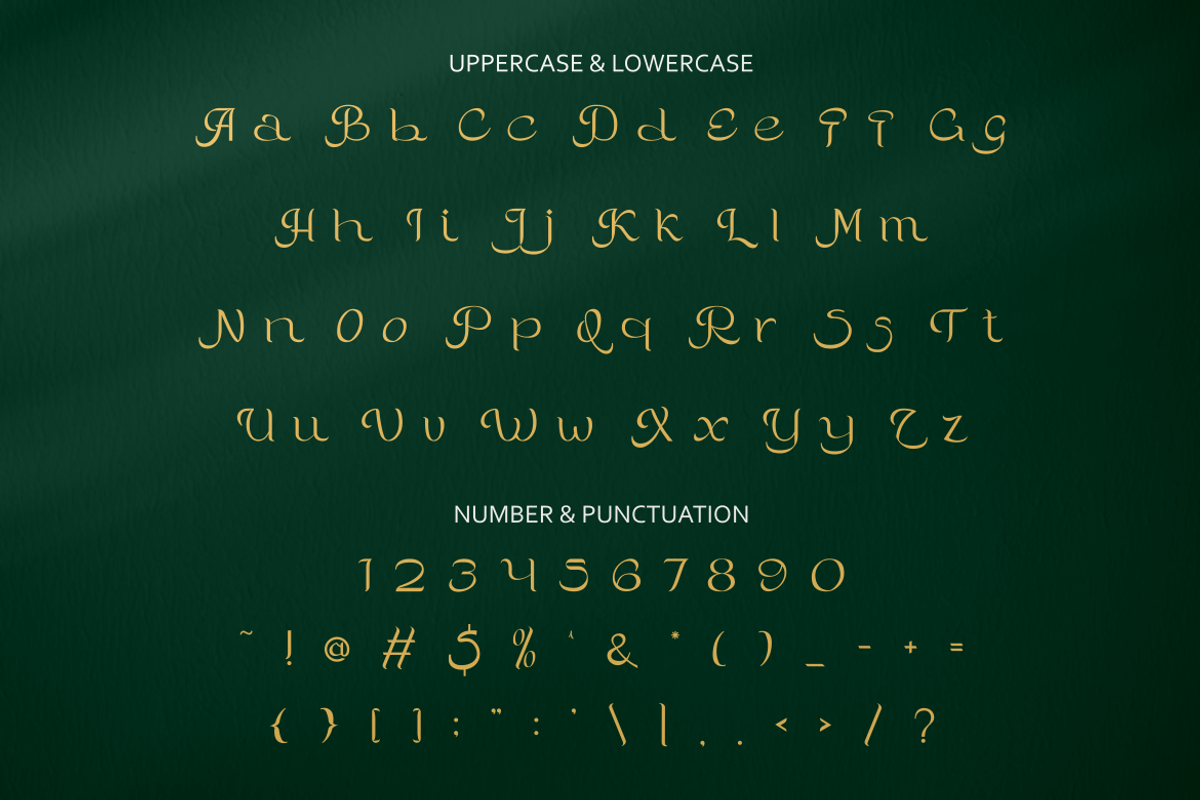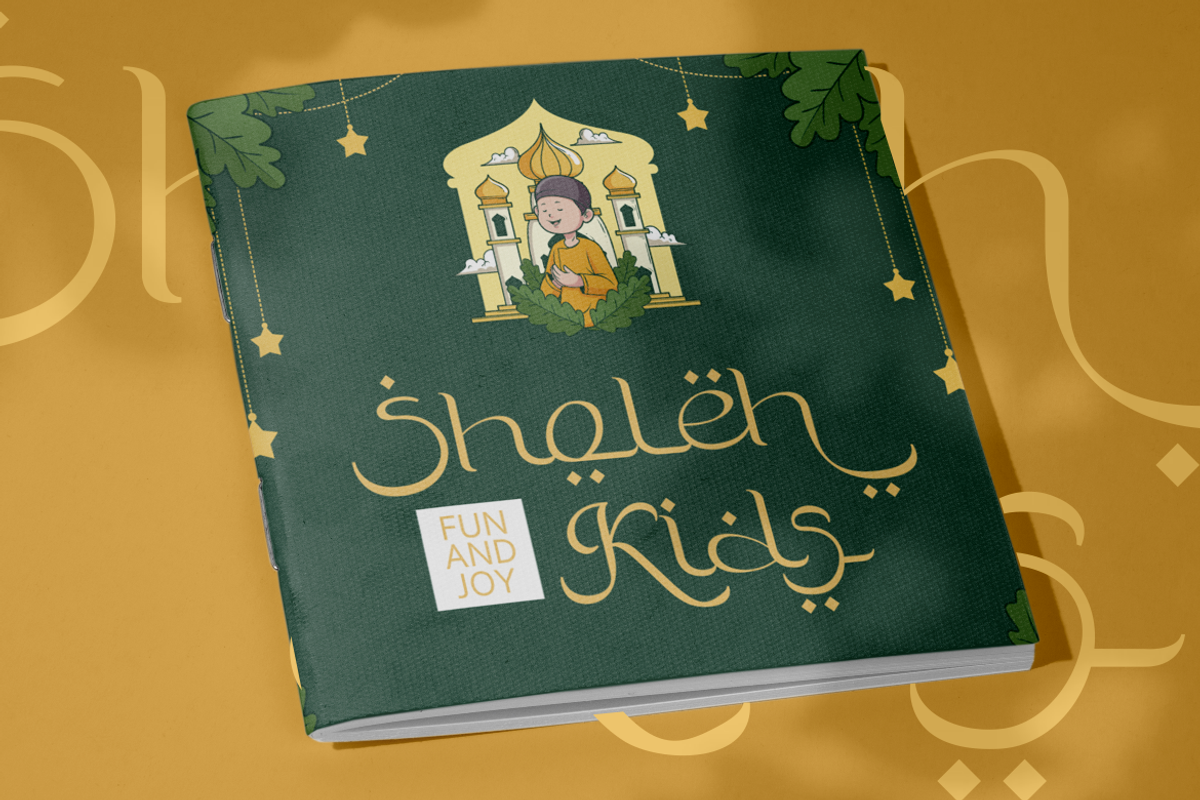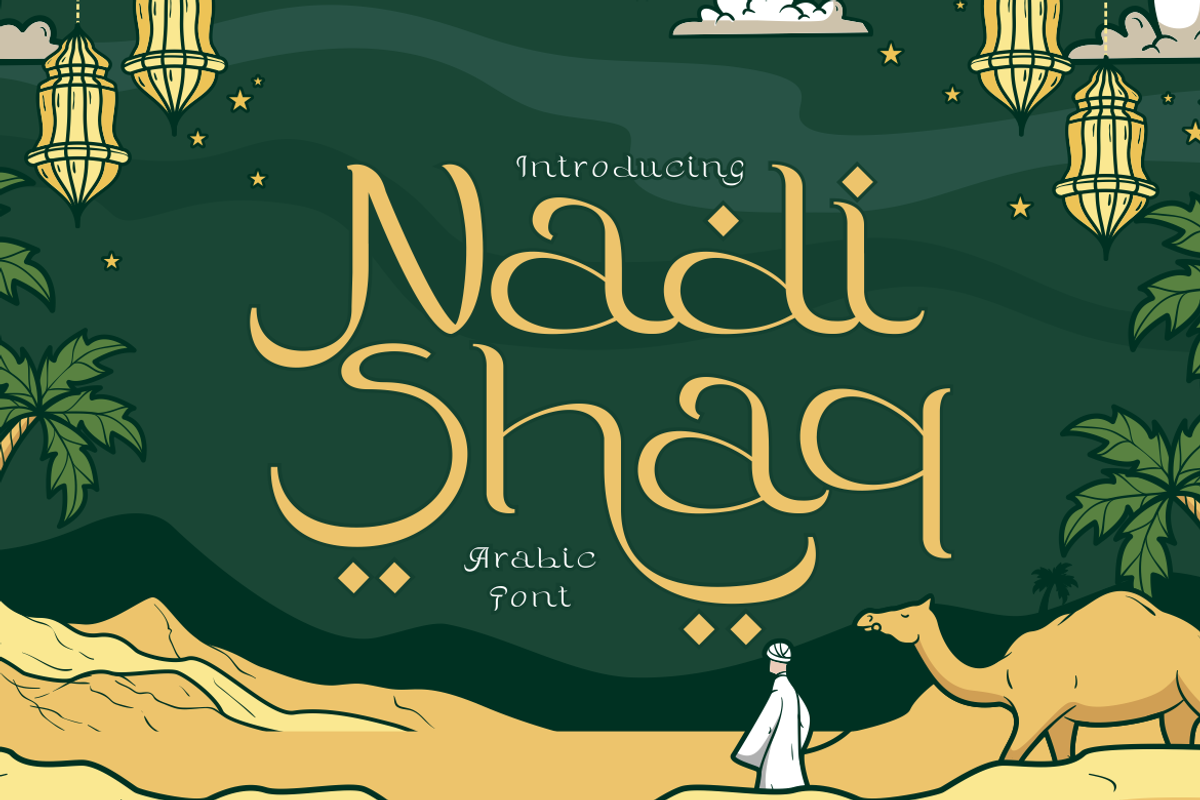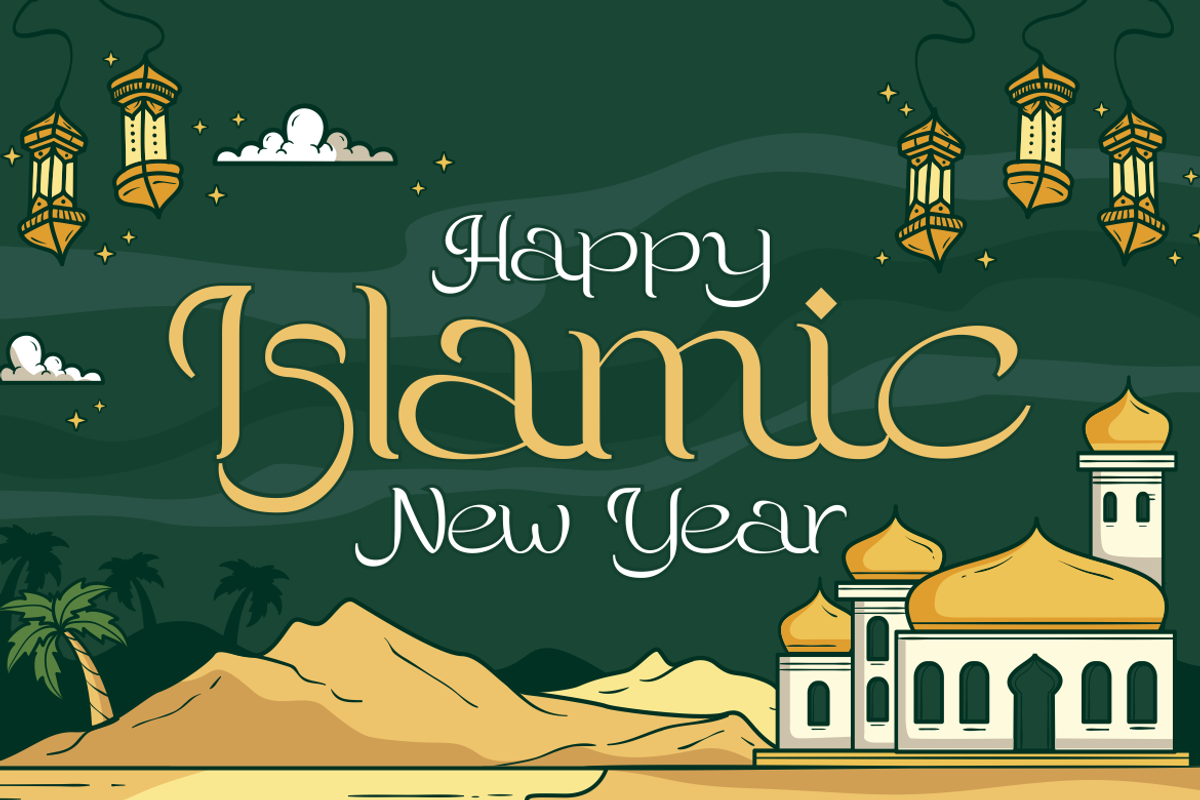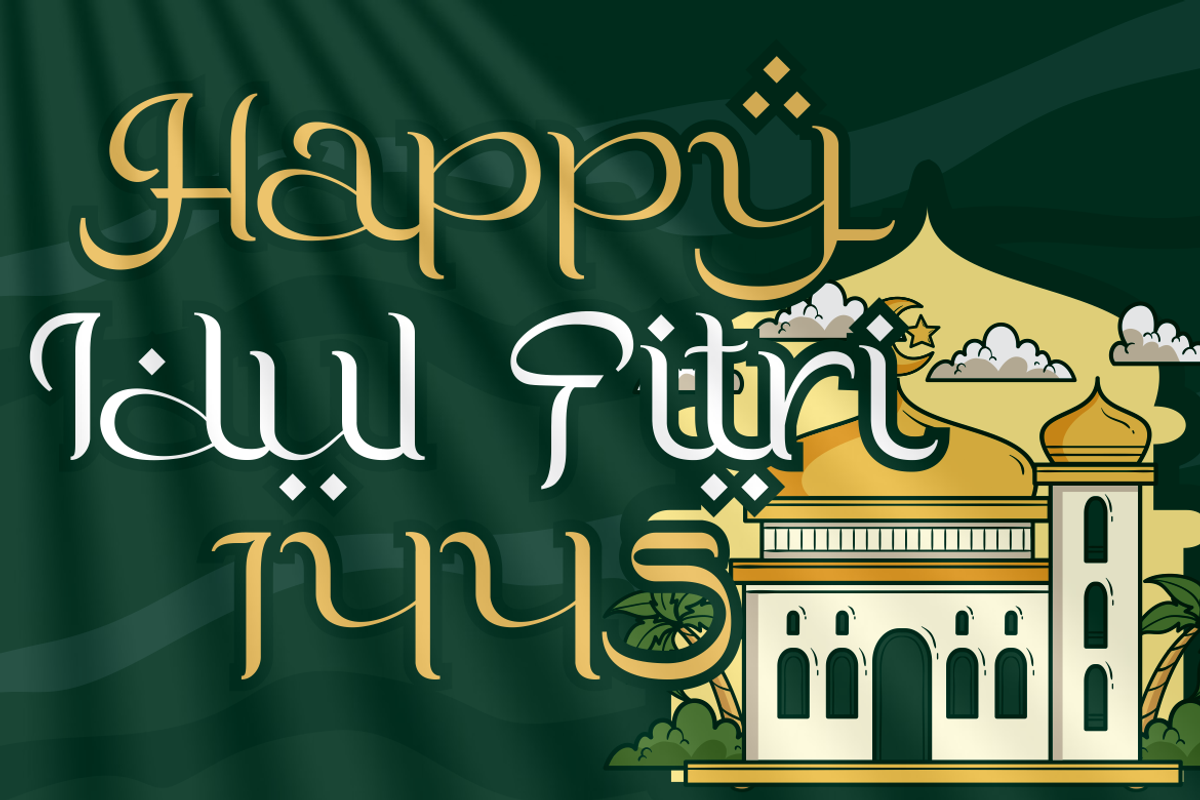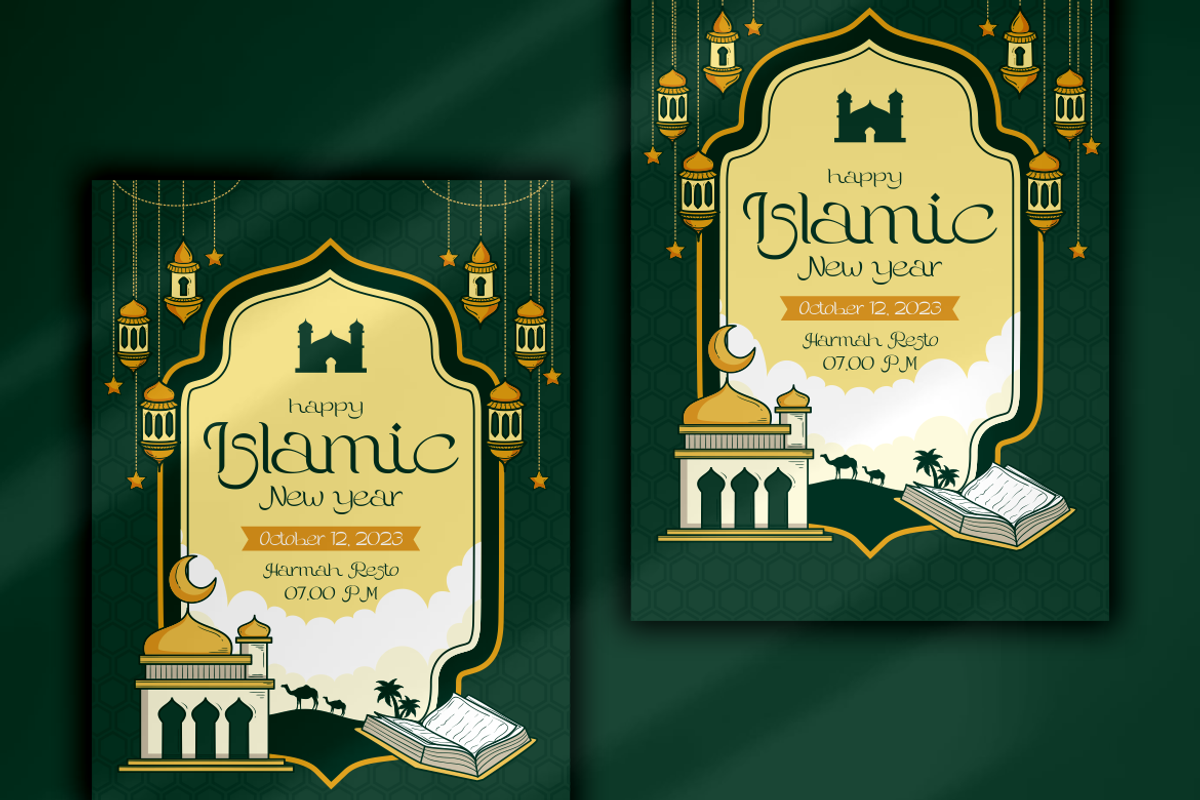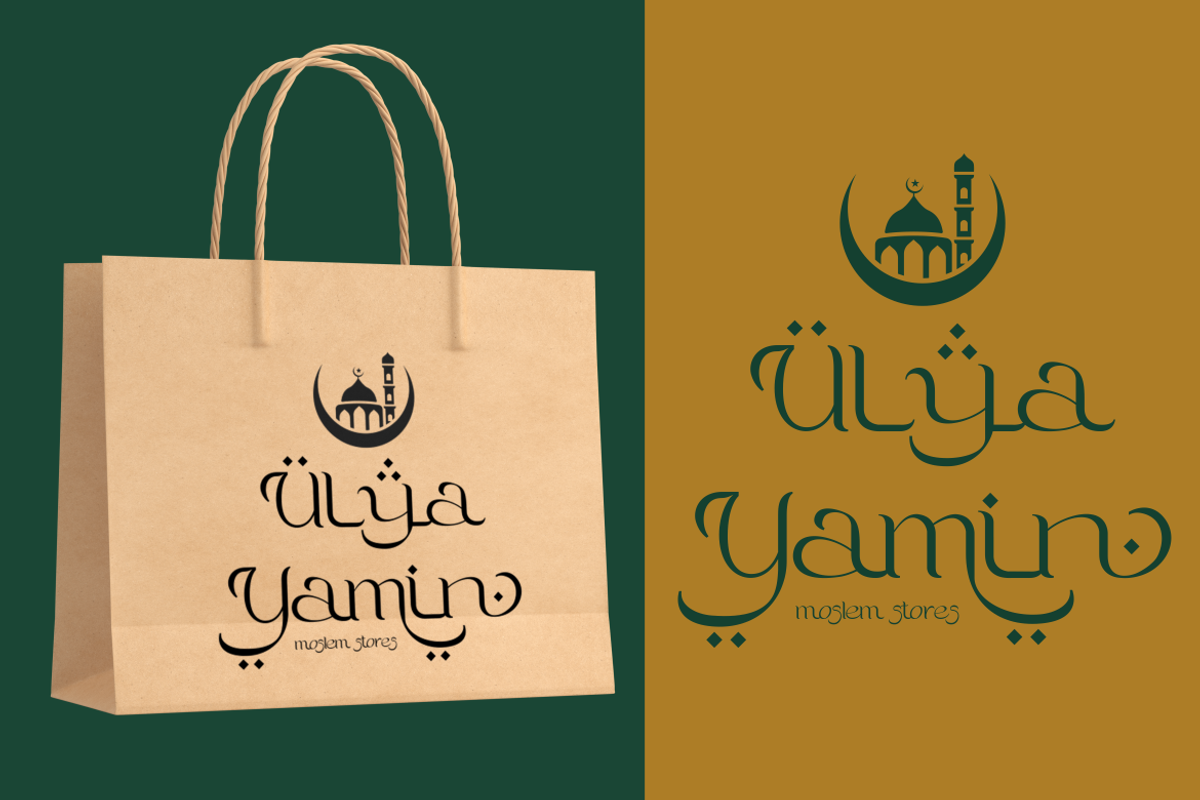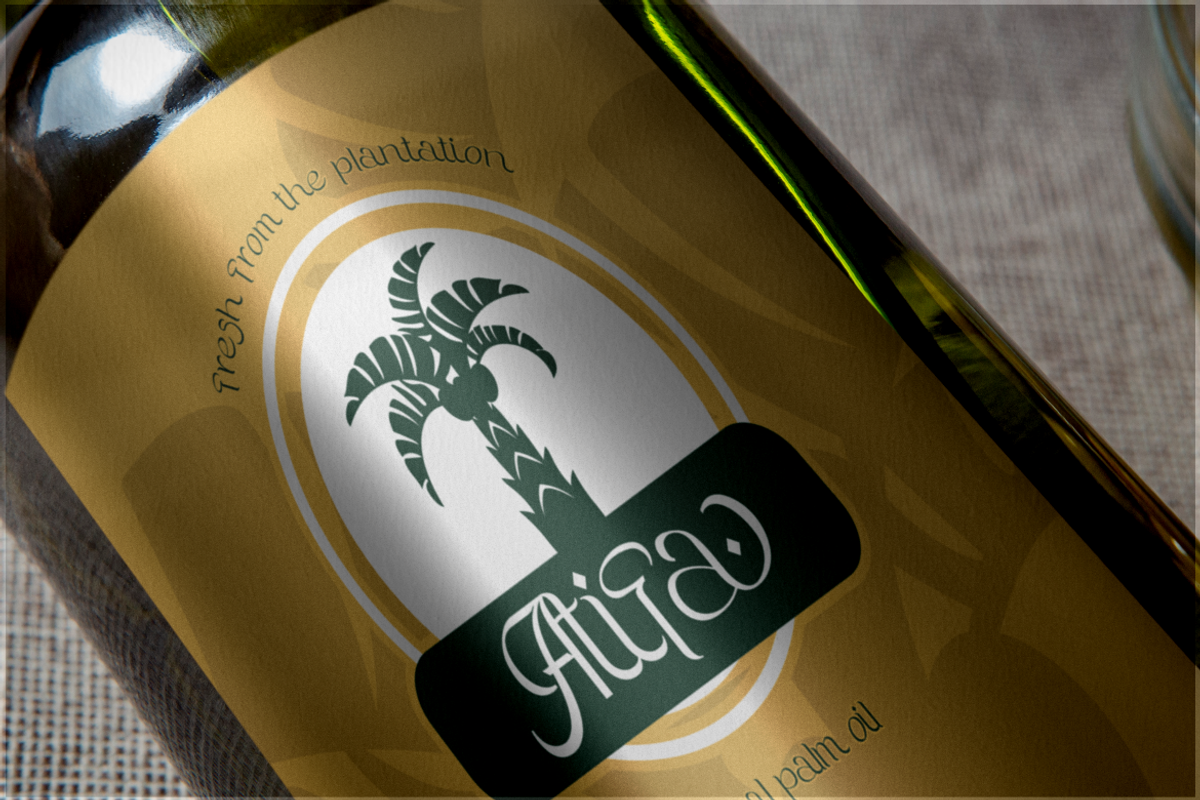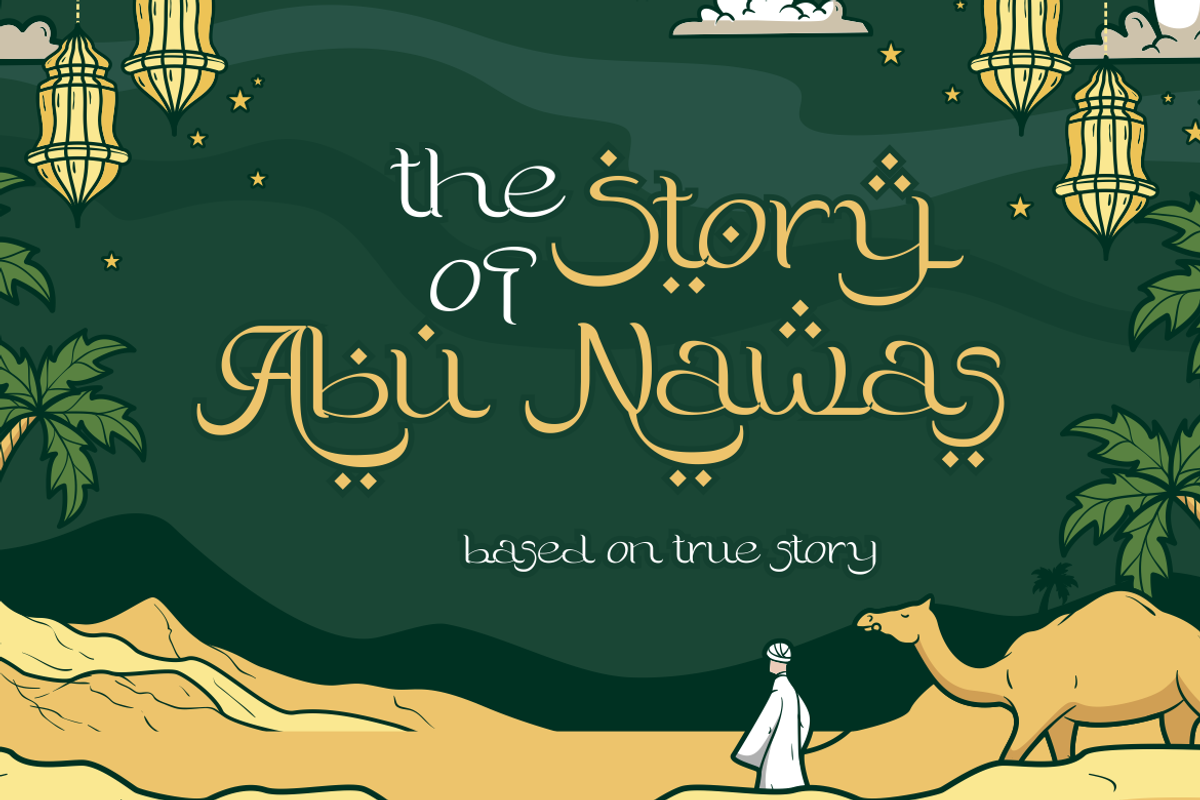
Nadishaq - Arabic Font
Nadishaq - Arabic Font is a captivating typeface with a unique Arabic letter theme. Each character in this font is meticulously crafted using the basic Arabic letterforms, resulting in a font that authentically captures the essence of Arabic script. It retains the distinctive features of Arabic letters, such as dots and swashes, which adds an extra layer of authenticity to your designs.
Perfect for logos, packaging, branding, books, titles, and posters designed with an Arabic theme, Nadishaq seamlessly integrates into designs focusing on the Arabic language and culture. It's a font that encapsulates the beauty and intricacies of Arabic script, making it a versatile choice for a wide range of projects.
With its Arabic-inspired design, Nadishaq allows you to infuse an authentic Arabic touch into your creative works, making them truly stand out